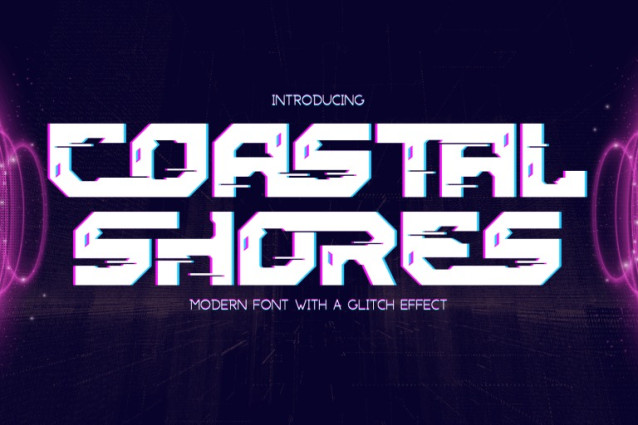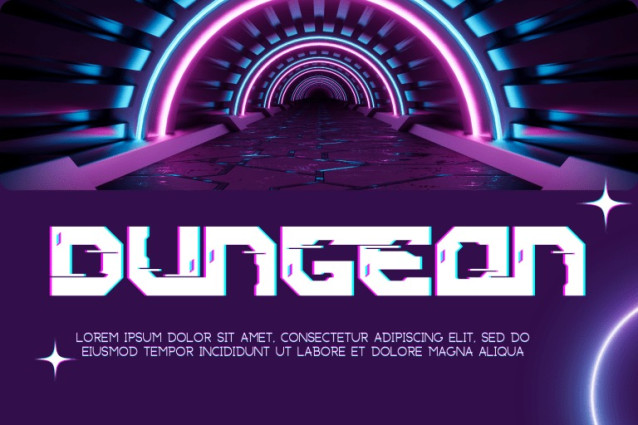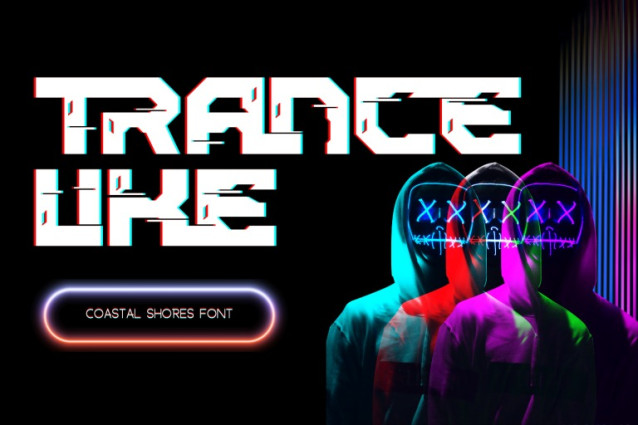
COASTAL SHORES – CYBERPUNK FONT
COASTAL SHORES – CYBERPUNK FONT is a bold futuristic display font infused with dynamic glitch effects and cyberpunk energy. Built with strong geometric letterforms and sharp angular cuts, this typeface delivers a powerful digital aesthetic inspired by modern technology and gaming culture. The distinctive glitch details and pixel-shift elements give each character a sense of motion and disruption, mimicking the look of digital interference and screen distortion. Enhanced with subtle neon-style accents, COASTAL SHORES creates a striking visual presence that stands out in any composition.
🔤Features:
Uppercase & Lowercase Letters
Around 100 Special Ligatures & Alternates
Accented Characters for multilingual support
🔤About 100 ligatures combined with Stylistic Alternates Font:
AC AD AL AN AR AS AT AU AV BE CA CE CH CO CT DE DI EA EC ED EE EL EM EN EP ER ES ET FE FO FR GE HA HE HI HO IE IC IL IN IO IR IS IT JU KE LA LE LI LL LO LY MA ME MI NC ND NE NG NO NT NS OC OF OM ON OO OP OR OT OU OW PA PR RA RD RE RI RO RS RT SE SH SI SO SS ST TA TE TH TI TO TR TT UM UN UR VE WI WO